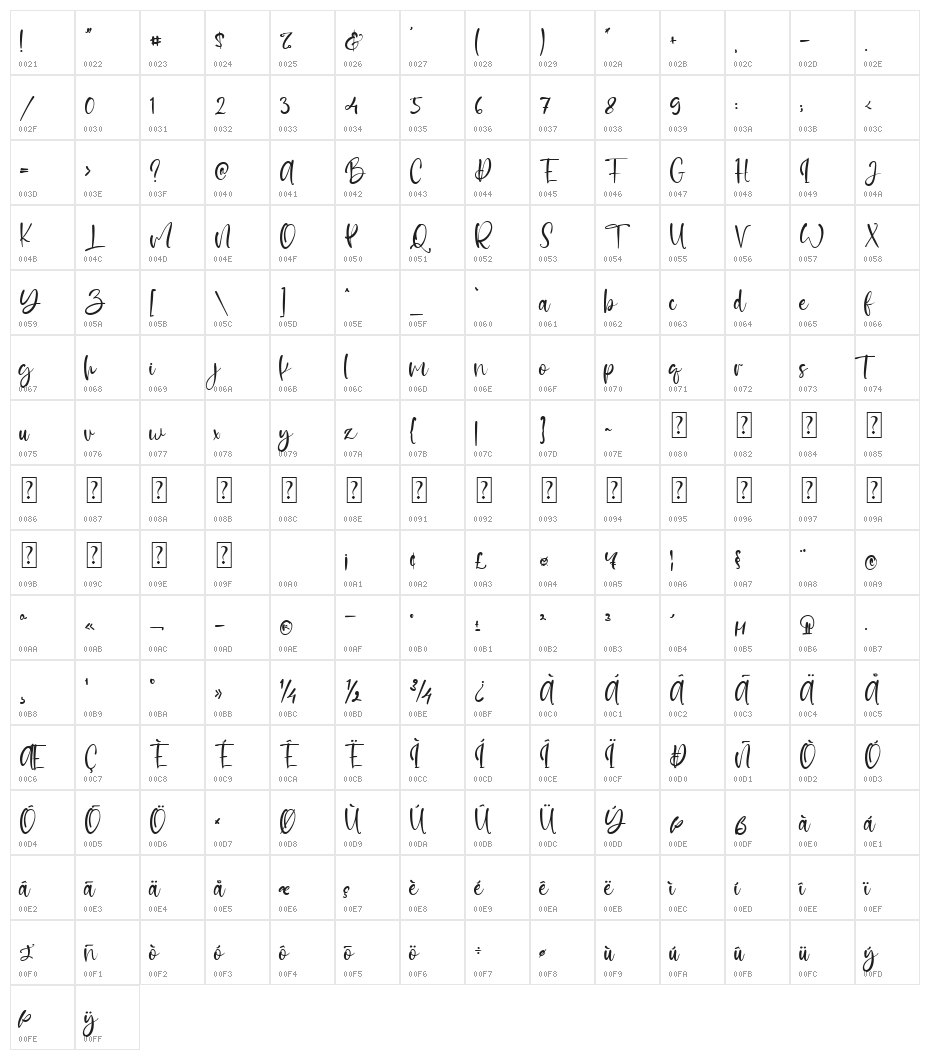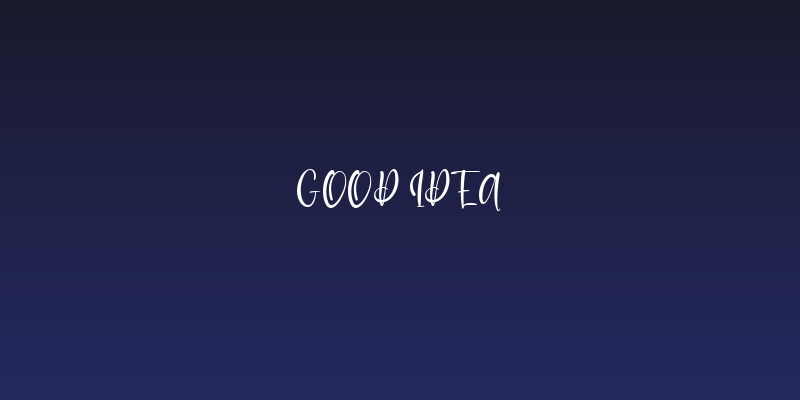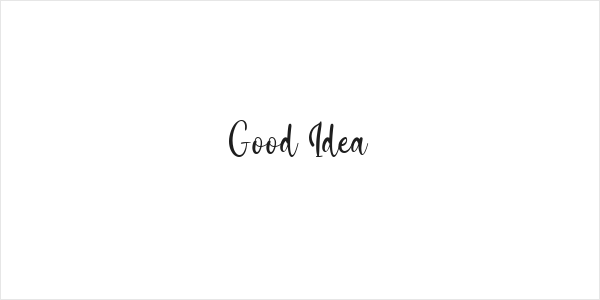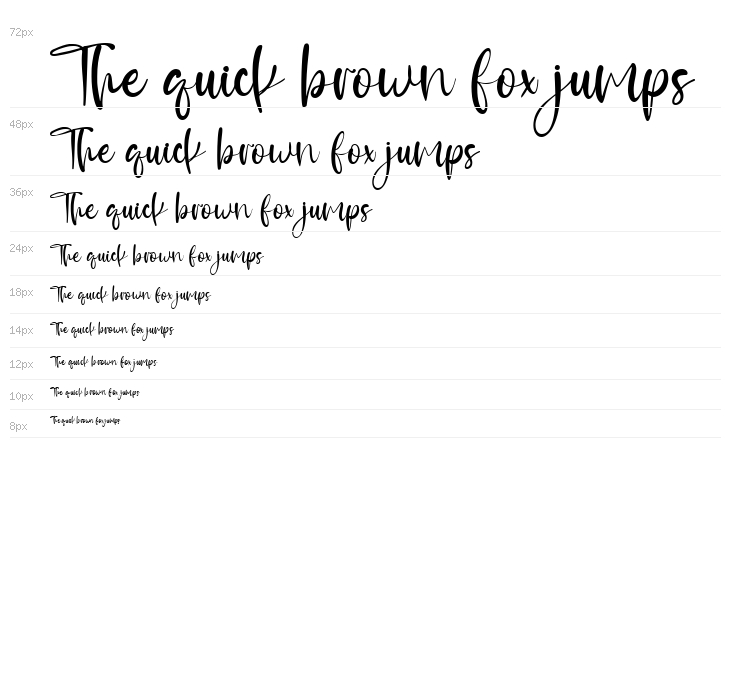
Good Idea Font
This font features a lively and expressive handwritten style, characterized by fluid strokes and a playful, casual appearance. The letters are connected in a way that mimics natural handwriting, with varying stroke widths that add a sense of dynamism and movement. The uppercase letters are bold and prominent, while the lowercase letters maintain a consistent flow, enhancing readability. Numbers and special characters are designed to match the overall aesthetic, making the font versatile for various uses. The font's unique charm makes it suitable for creative projects that require a personal touch.
| Proposed Projects | Ideal for greeting cards, invitations, branding, and social media graphics. |